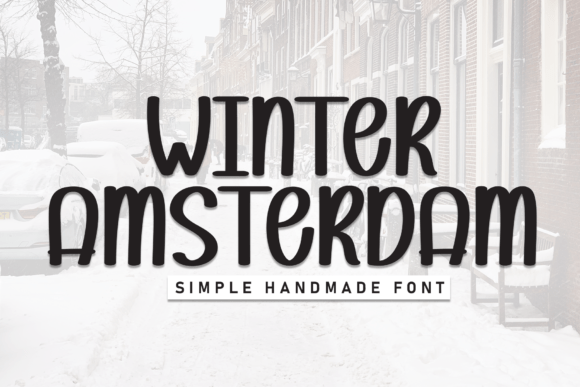
Winter Amsterdam Font: A Casual and Neat Display Font for Modern Designs
In the realm of typography, fonts play a crucial role in shaping the visual identity of a brand, product, or digital content. With numerous font styles available, selecting the right one can be a daunting task. However, if you’re looking for a font that combines simplicity with a friendly and approachable vibe, Winter Amsterdam Font is an excellent choice. This article will delve into the features, benefits, and uses of Winter Amsterdam Font, exploring how it can elevate your designs with its unique charm.
What is Winter Amsterdam Font?
Winter Amsterdam is a casual and neat display font that has gained popularity for its modern handwritten typography style. It boasts clean lines, balanced letterforms, and subtle rounded edges, making it an ideal choice for designs that require a warm and inviting touch. This font’s polished finish sets it apart from other display fonts, making it perfect for branding, headlines, packaging, and digital content.
Key Features of Winter Amsterdam Font
- Clean Lines: Winter Amsterdam Font features clean lines that give it a crisp and modern look, making it perfect for designs that require clarity and precision.
- Balanced Letterforms: The font’s balanced letterforms ensure that each character is harmonious and visually appealing, contributing to its overall polished finish.
- Subtle Rounded Edges: The subtle rounded edges of Winter Amsterdam Font add a touch of warmth and friendliness, making it an excellent choice for designs that require a approachable vibe.
- Versatile Style: This font’s versatile style makes it suitable for various design applications, from branding and headlines to packaging and digital content.
Benefits of Using Winter Amsterdam Font
Winter Amsterdam Font offers several benefits that make it an attractive choice for designers and businesses. Some of the key benefits include:
- Warm and Inviting Touch: The font’s warm and inviting touch makes it perfect for designs that require a friendly and approachable vibe.
- Clarity and Charm: Winter Amsterdam Font delivers clarity and charm in equal measure, making it an excellent choice for designs that require both precision and visual appeal.
- Versatility: The font’s versatility makes it suitable for various design applications, saving designers time and effort in selecting multiple fonts for different projects.
Use Cases for Winter Amsterdam Font
Winter Amsterdam Font is an excellent choice for various design applications, including:
- Branding: The font’s unique style makes it perfect for branding projects that require a warm and inviting touch.
- Headlines: Winter Amsterdam Font’s clean lines and balanced letterforms make it an excellent choice for headlines that require clarity and visual appeal.
- Packaging: The font’s versatile style makes it suitable for packaging designs that require a modern and polished finish.
- Digital Content: Winter Amsterdam Font is perfect for digital content, such as blog posts, social media graphics, and website headers, that require a friendly and approachable vibe.
Tips for Using Winter Amsterdam Font
To get the most out of Winter Amsterdam Font, consider the following tips:
- Pair it with Other Fonts: Experiment with pairing Winter Amsterdam Font with other fonts to create a unique and visually appealing design.
- Adjust Font Size: Adjust the font size to suit your design needs, ensuring that the font remains clear and legible.
- Use it Consistently: Use Winter Amsterdam Font consistently throughout your design to create a cohesive and polished look.
In conclusion, Winter Amsterdam Font is a casual and neat display font that offers a unique blend of simplicity, friendliness, and approachability. Its clean lines, balanced letterforms, and subtle rounded edges make it an excellent choice for designs that require a warm and inviting touch. With its versatility and polished finish, Winter Amsterdam Font is perfect for various design applications, from branding and headlines to packaging and digital content. By incorporating this font into your designs, you can elevate your visual identity and create a lasting impression on your audience.